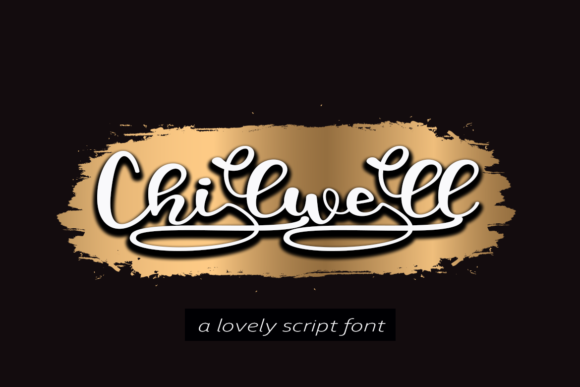
Unleash the beauty of handwritten elegance with Chilwell Font - the ultimate choice for adding a personal touch to your creative projects. Experience the timeless charm of this stunning script font, meticulously crafted by the renowned Supersemar Letter.
Dive into a world of creativity and let your imagination run wild with Chilwell Font. Its graceful curves and delicate strokes evoke a sense of sophistication and warmth that will captivate your audience. From heartfelt wedding invitations and heartfelt thank-you notes to inspiring quotes and eye-catching logos, Chilwell Font possesses the versatility to elevate any project with its captivating presence.
Indulge in the artistry of Chilwell Font and witness the transformation of your words into captivating works of art. Its unique character adds a touch of charm to every letter, making it the perfect choice for creating personalized greeting cards, enchanting business cards, and any design that craves a handwritten flair.
With Chilwell Font, you hold the key to unlocking a realm of possibilities. Its timeless appeal transcends trends, ensuring that your creations remain beautiful and relevant for years to come. Whether you're a passionate designer, a creative entrepreneur, or simply someone with a love for the written word, Chilwell Font is your perfect companion, ready to elevate your projects to new heights of elegance and sophistication.
Embrace the allure of Chilwell Font and embark on a creative journey like no other. Its captivating beauty and endless versatility will ignite your imagination and empower you to create designs that resonate with your audience. Discover the true essence of handwritten artistry and let Chilwell Font guide you towards creative greatness.